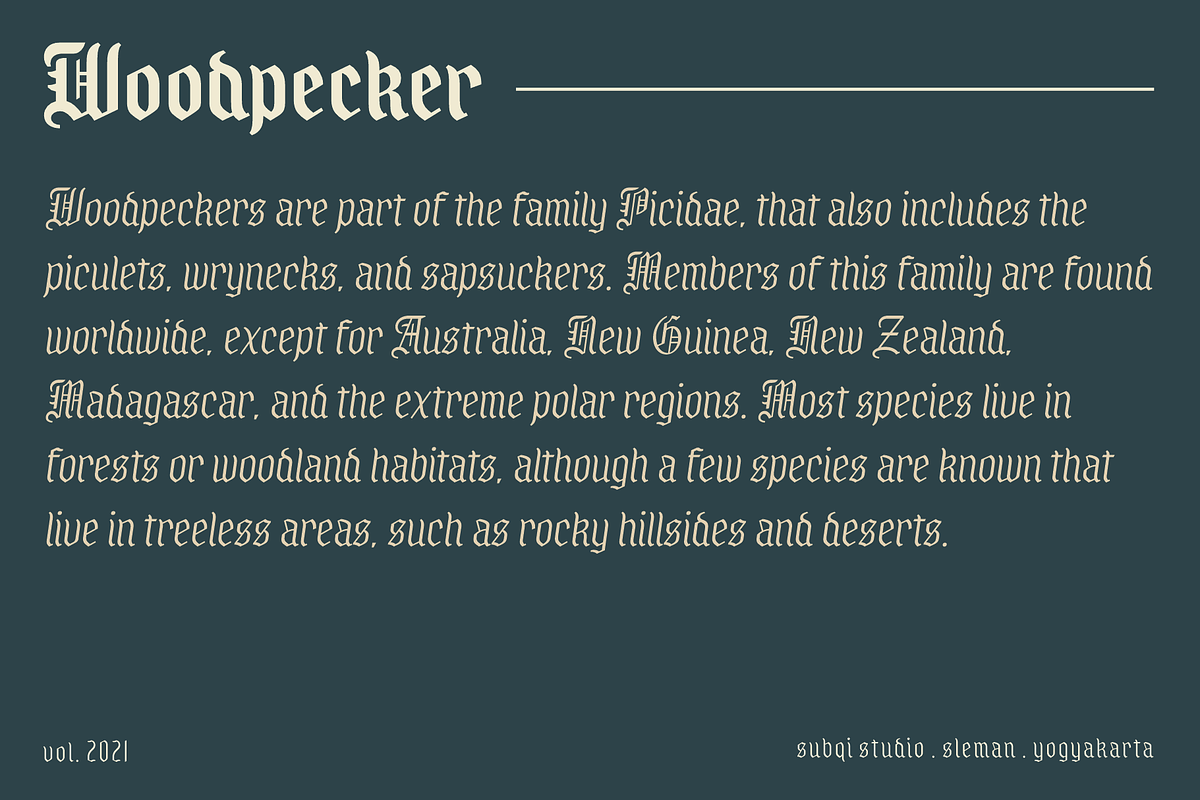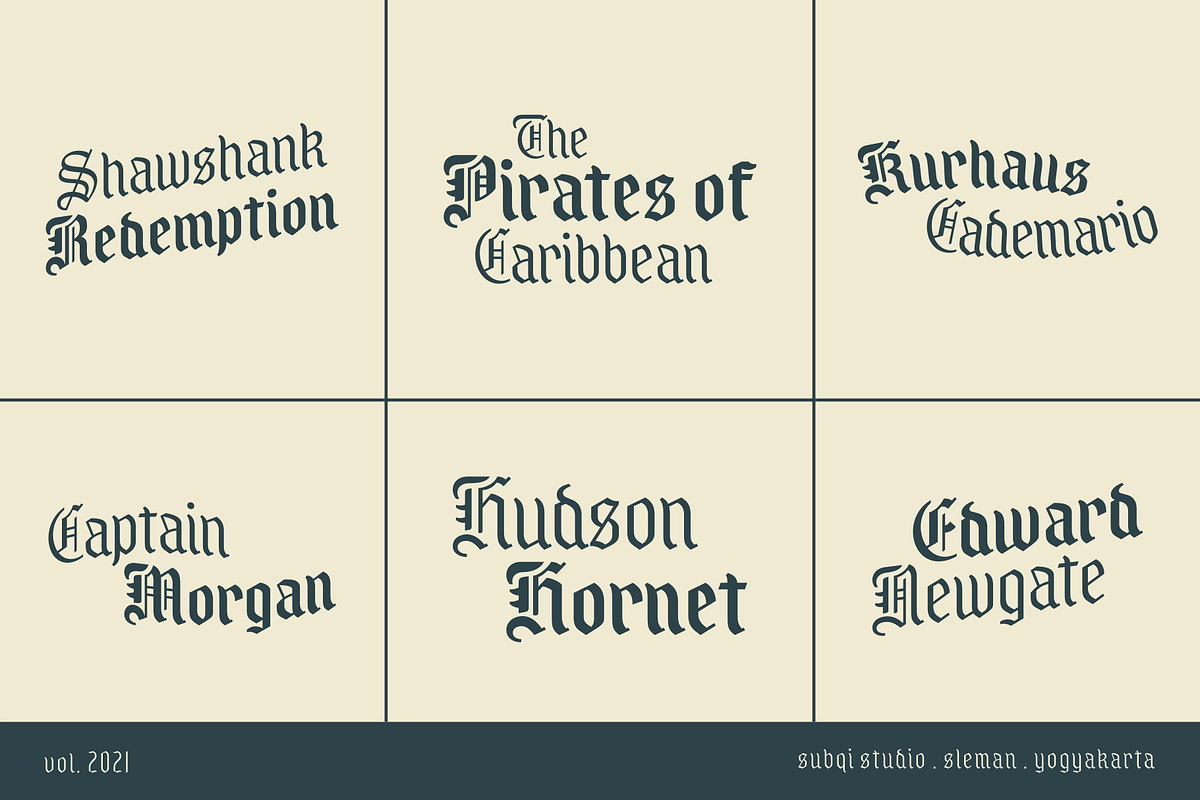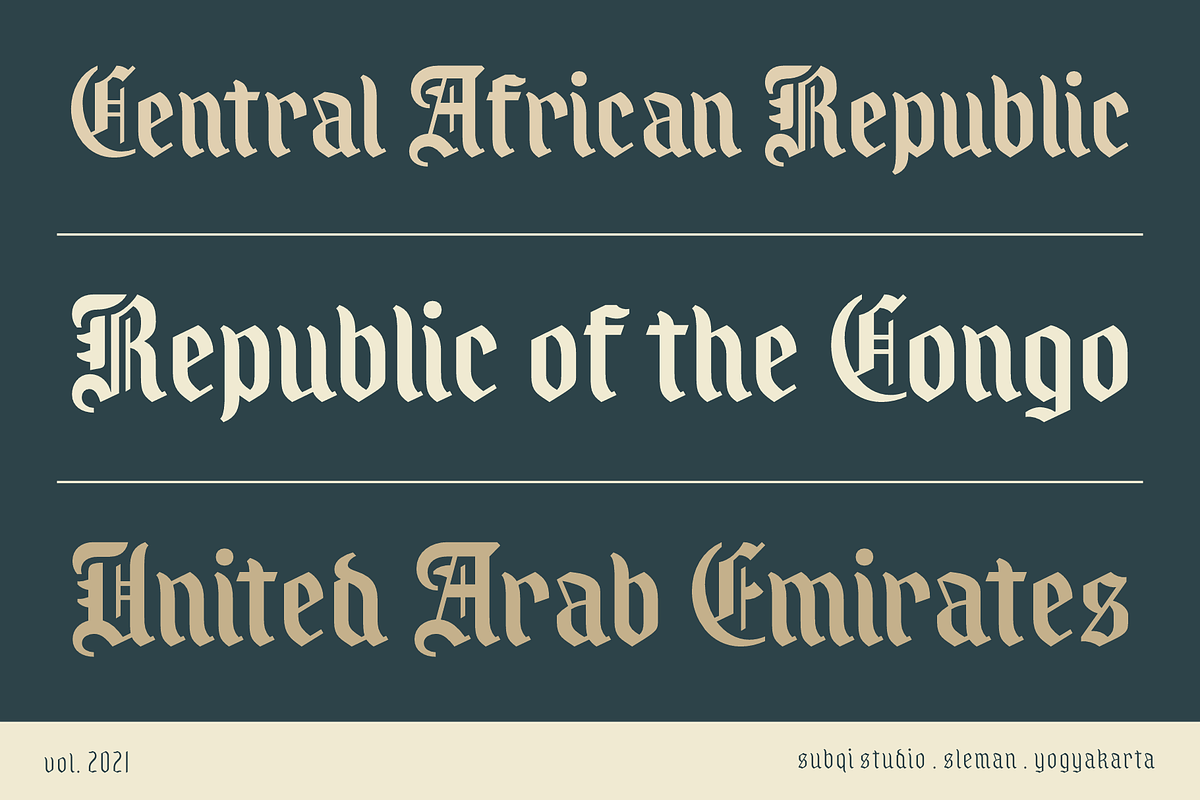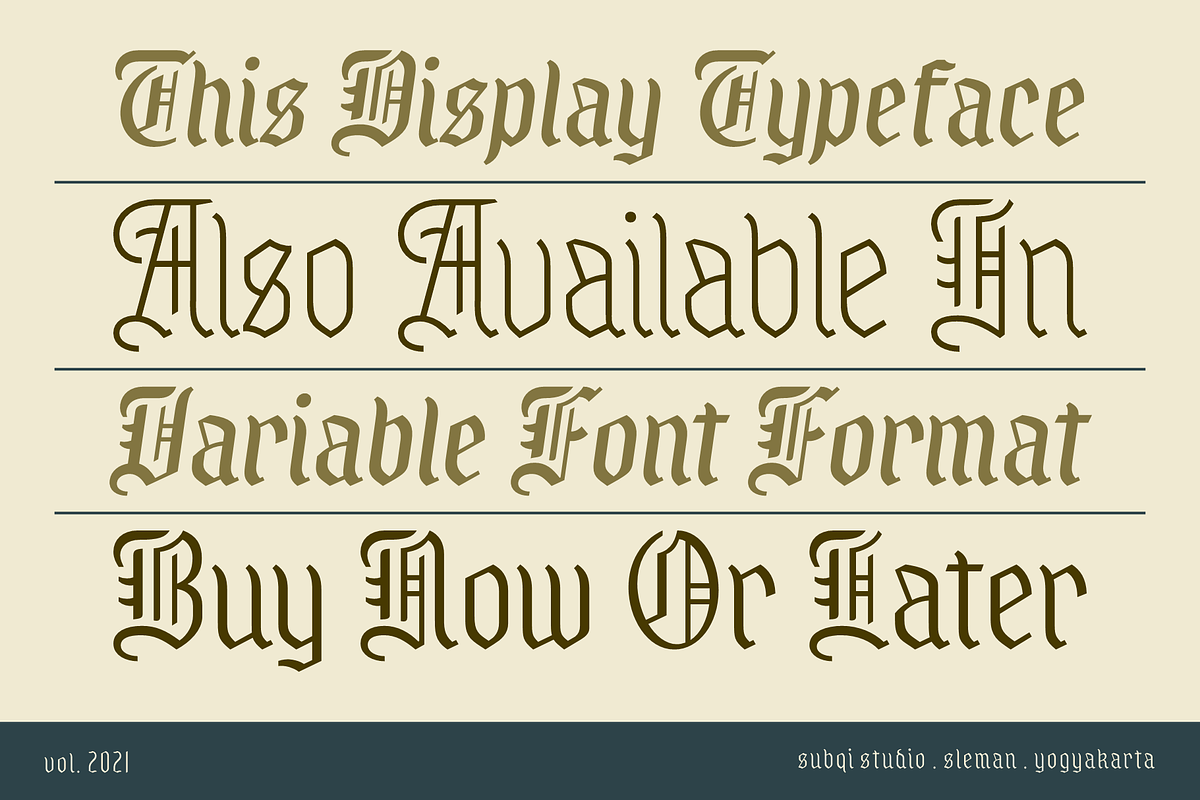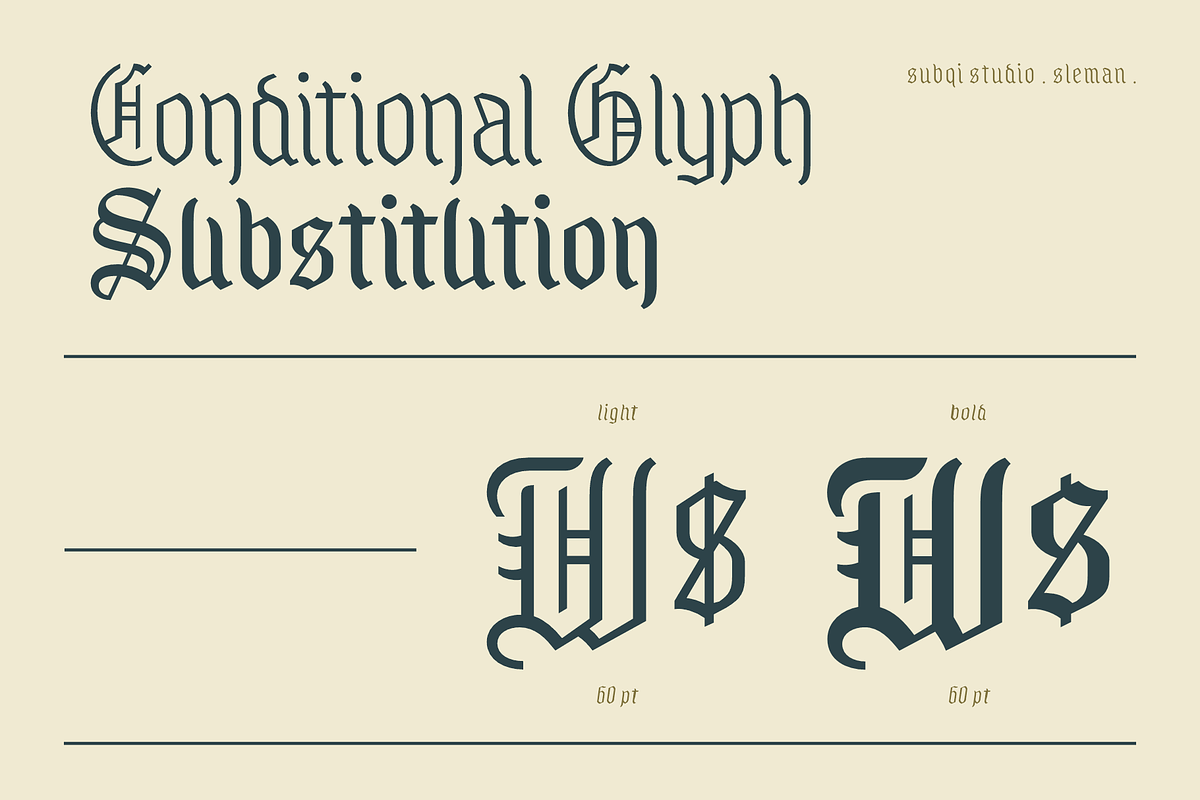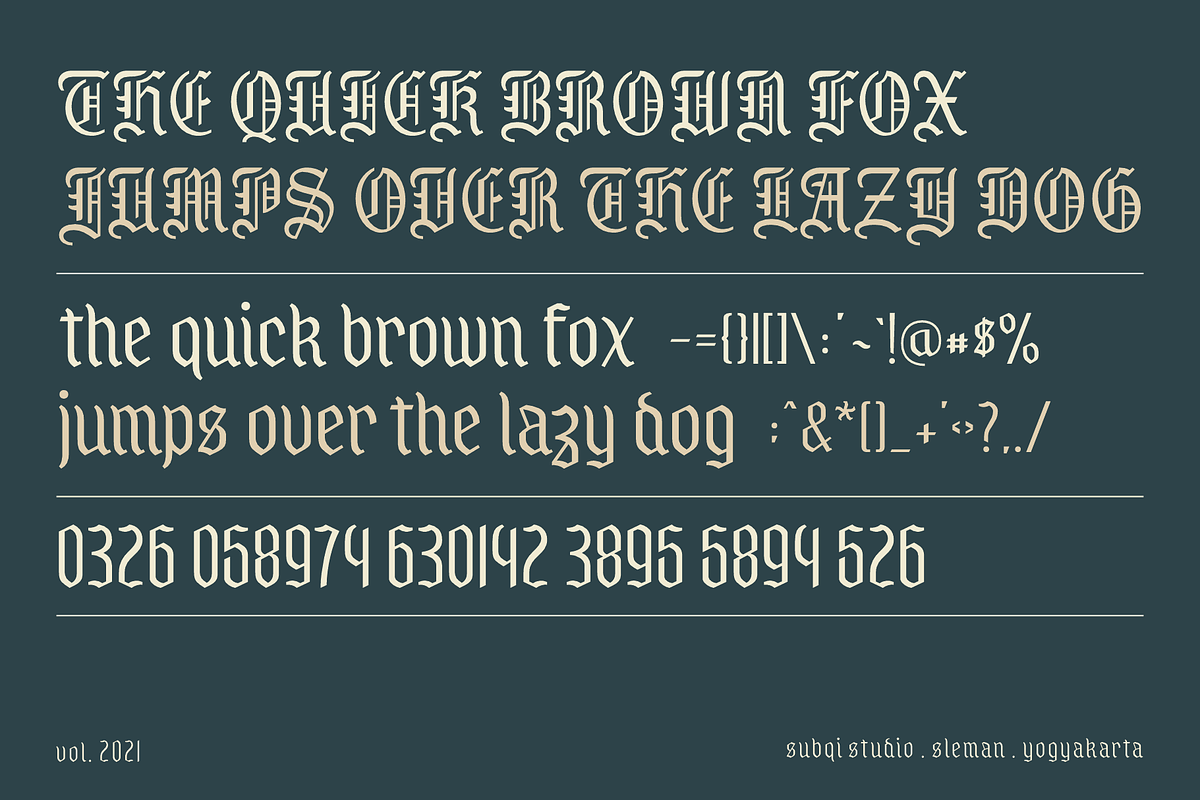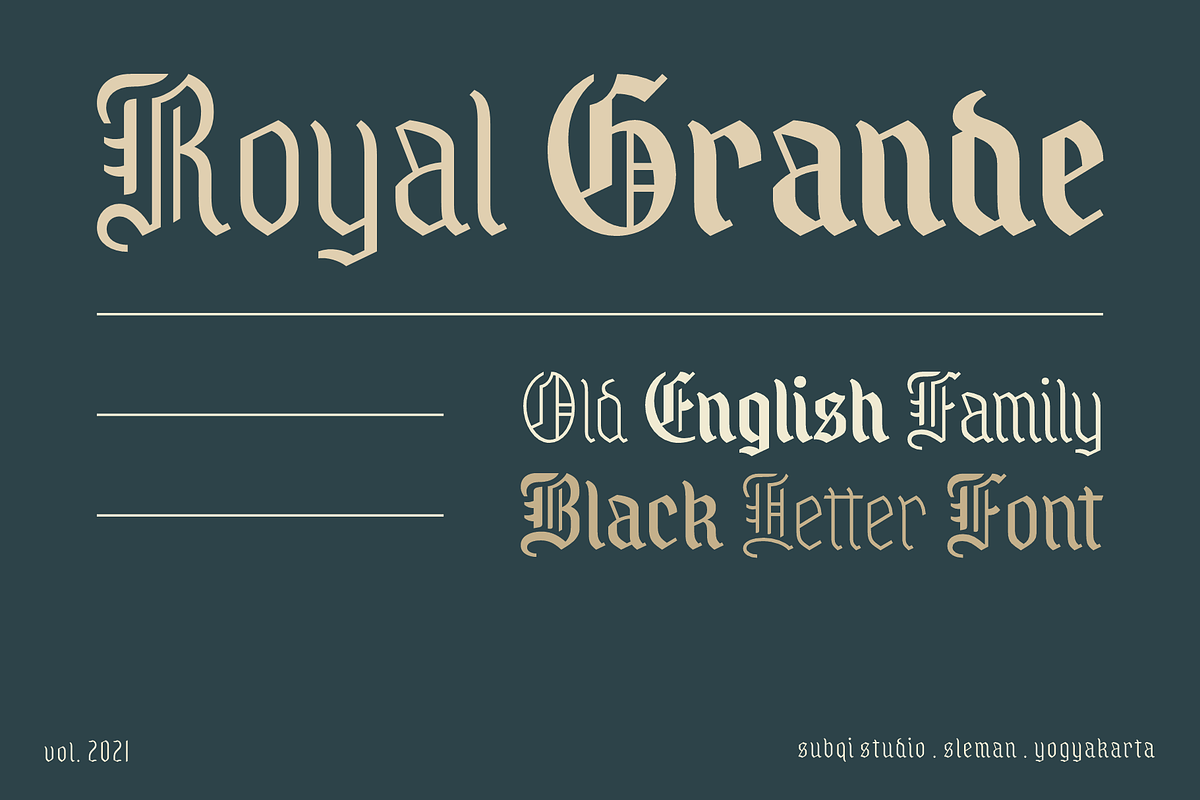
Royal Grande - Black Letter Family
Introducing our first old english black letter Royal Grande. Quite basic anatomy not the contemporary style. With this not too complicated black letter that make this font good for general display projects. We also make it a black letter family because we rarely see this kind of option in the market. Another good news , we also offer the variable format this time for the new font enthusias community.